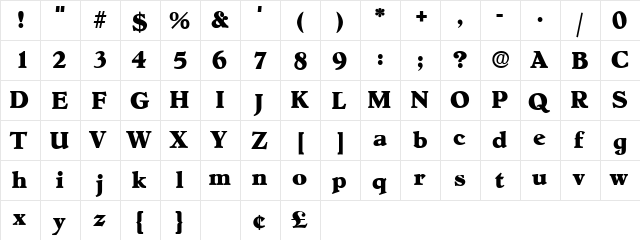
Negotiat Display SSi Regular
Design Context for Negotiat Display SSi Typeface
Negotiat Display SSi is built around its visual character rather than neutral utility — its distinctive forms are designed to make an impression at display sizes.
Font Pairing: Pair with a clean neutral sans-serif for body copy to let Negotiat Display SSi's character lead without overwhelming the composition.
Pro Tip: Treat Negotiat Display SSi as the centrepiece of your typographic hierarchy. One strong heading set in a decorative face can carry an entire layout.